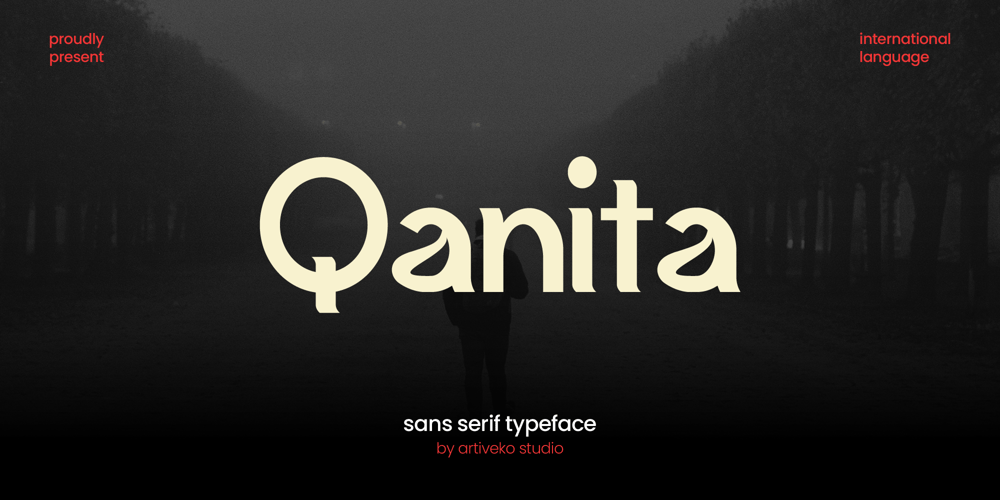
Qanita Font Family was designed by Iwan Alwan and published by Artiveko. Qanita contains 2 styles and family package options. Qanita is a distinctive sans serif font crafted by Iwan Alwan. Featuring unique shapes and a variety of styles in both uppercase and lowercase, it adds a fresh twist to modern typography. Qanita also supports multiple languages, making it versatile for global use. Ideal for branding, web design, and print, this font combines creativity with practicality.